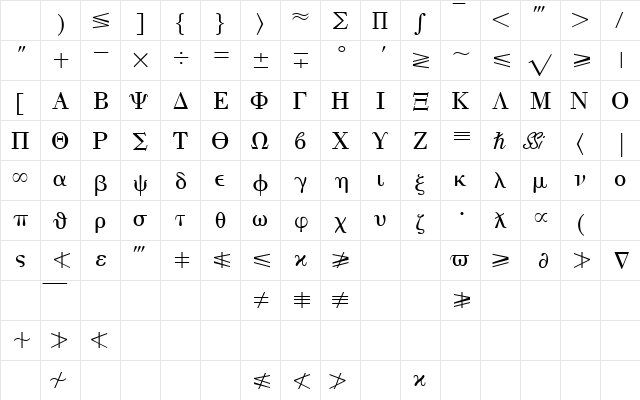
EisagoGreekSSK Regular
Design Context for EisagoGreekSSK
EisagoGreekSSK is a composed and adaptable typeface that performs quietly and consistently across a wide range of design contexts.